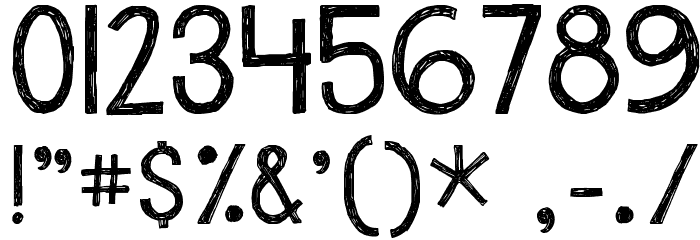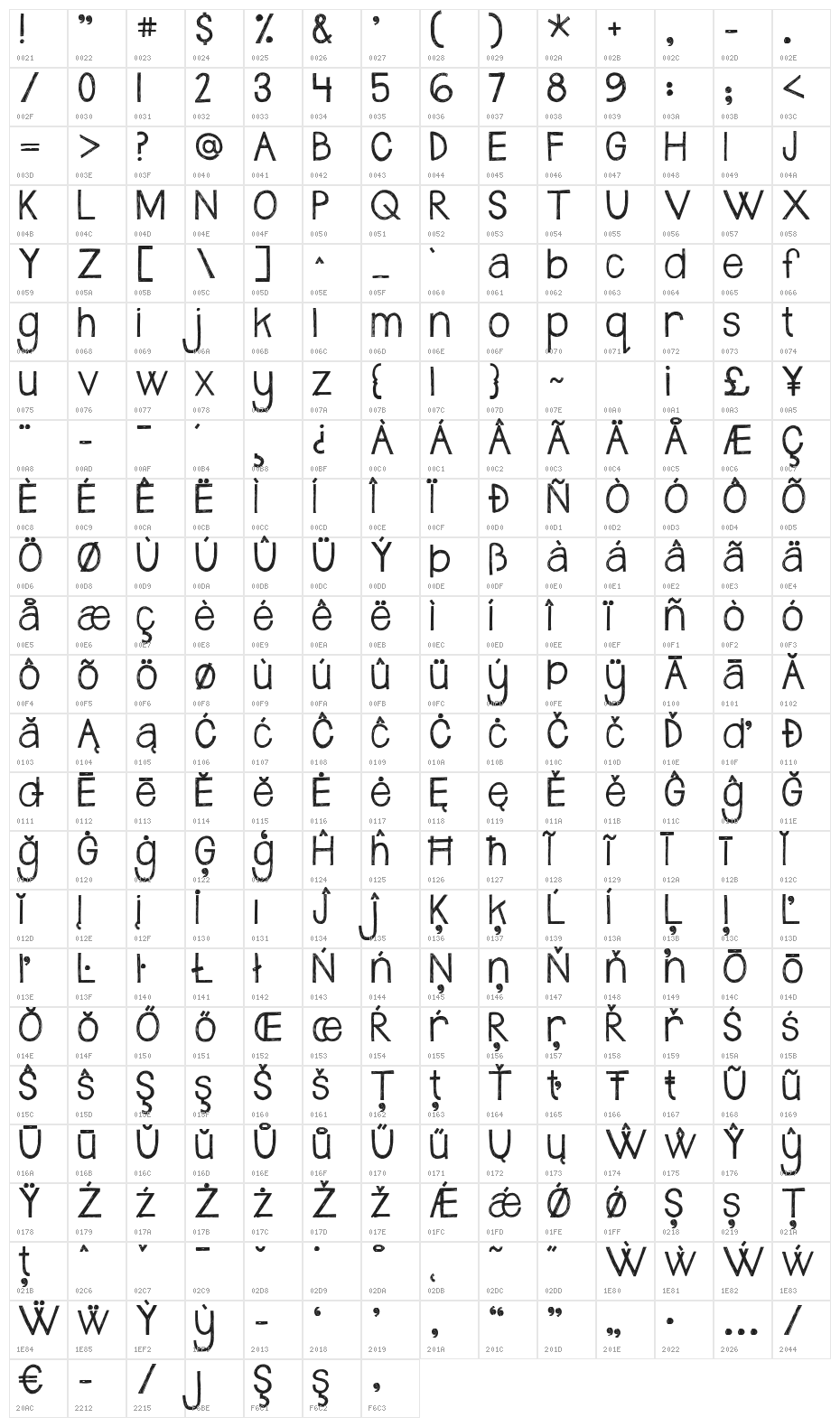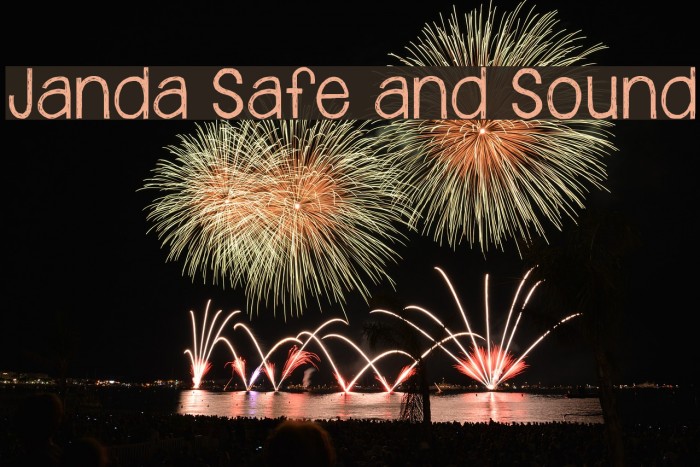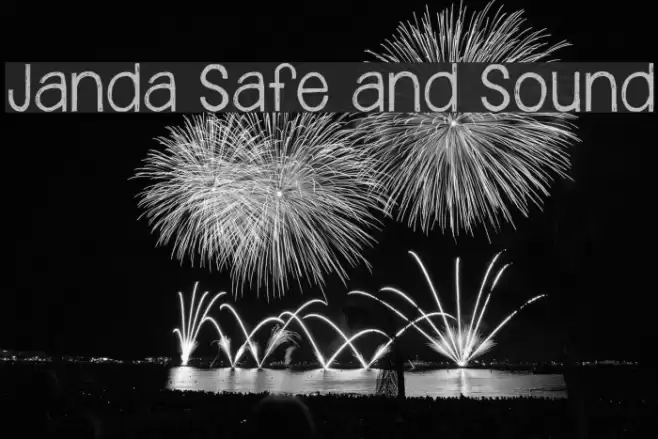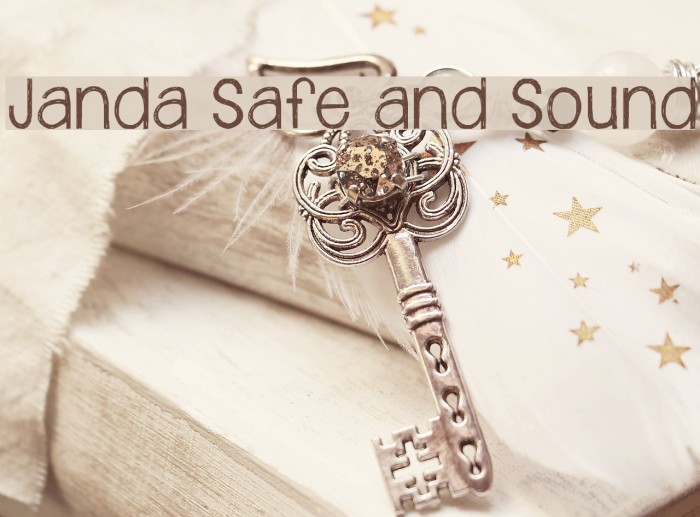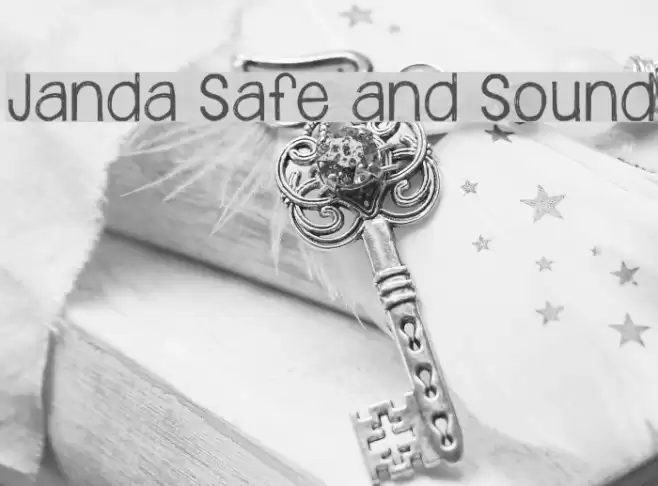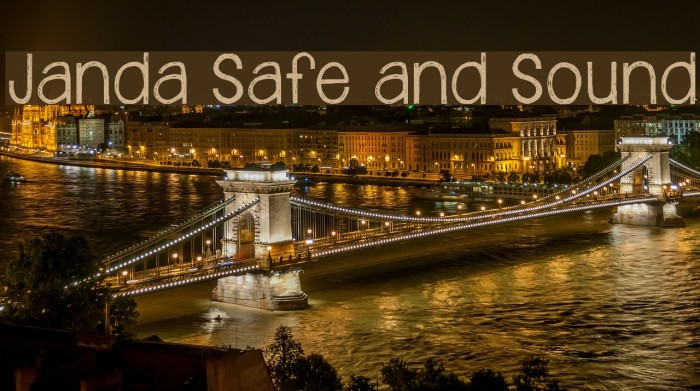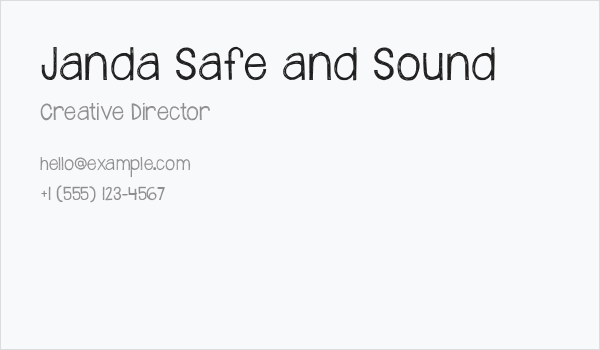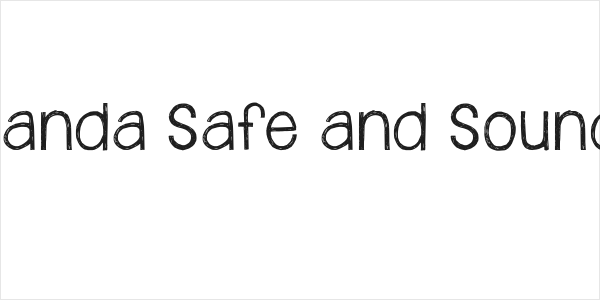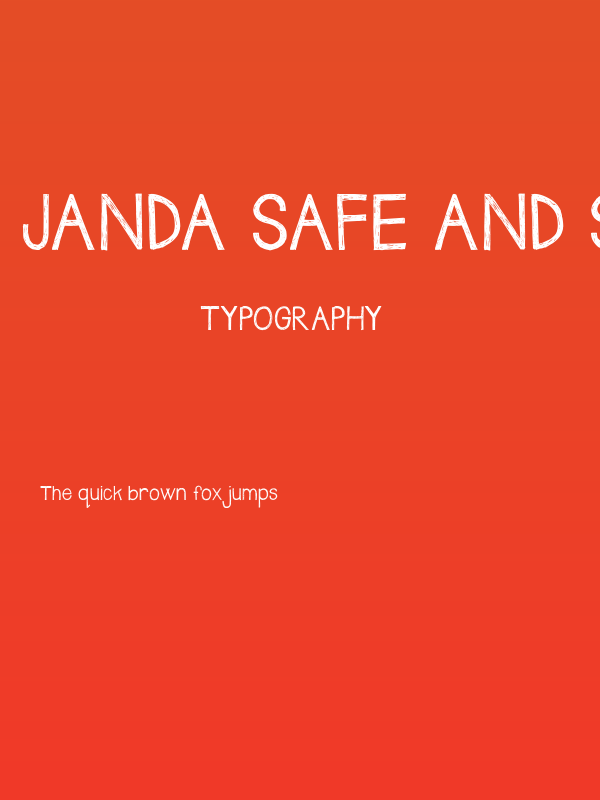
Janda Safe and Sound Font
Janda Safe and Sound Description
This font features a playful and hand-drawn aesthetic, characterized by its uneven strokes and slightly irregular shapes. The letters have a casual, friendly appearance, with a texture that mimics the look of chalk or crayon on paper. The uppercase and lowercase letters maintain a consistent style, with rounded edges and a slightly whimsical feel. Numbers and special characters are designed to match the overall playful theme, making them suitable for creative and informal projects. The font's unique style adds a touch of personality and charm, making it ideal for designs that require a handcrafted look.
| Proposed Projects | Ideal for children's books, playful branding, greeting cards, and DIY projects. |